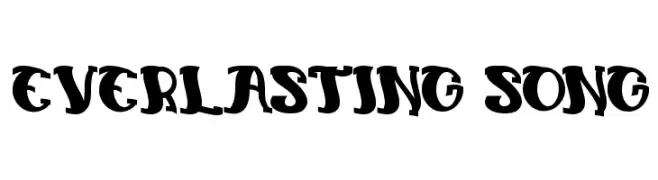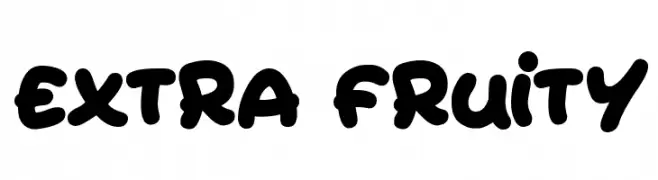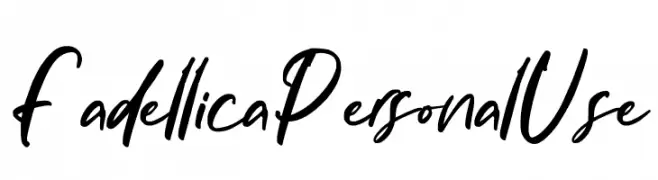
A geometric, industrial-style font with tall, narrow letterforms and angular serifs.
A bold, edgy font with sharp angles and a rebellious style.
A bold, decorative font with artistic curves and flourishes.
A bold, playful font with rounded, bubbly characters.
A decorative, thorn-like font with a chaotic and edgy style.
A whimsical font with characters featuring cartoonish eyes, perfect for playful designs.
A bold, handwritten font with a dynamic and expressive style.
A whimsical, decorative font inspired by vintage fairground signage.
A flowing, elegant script font with bold, expressive characters.